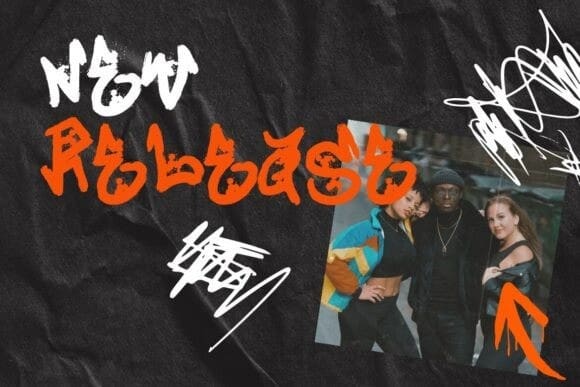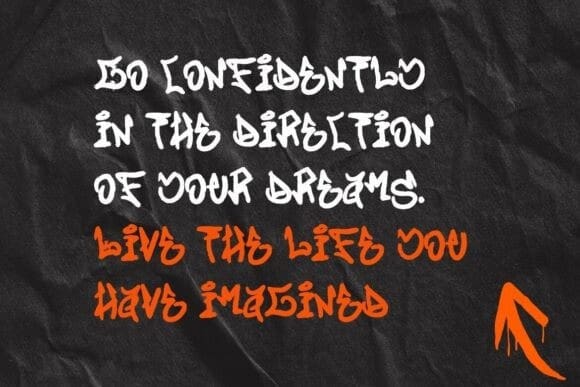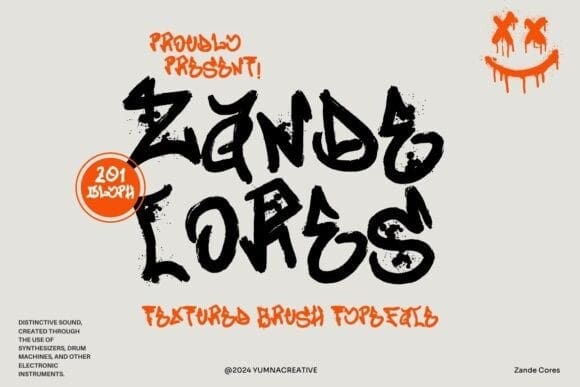
Zande Cores Font
Zande Cores Font – Textured Brush is a special brush designed to create textured effects in your artwork. It has a unique surface that adds depth and detail, making it perfect for adding a rough or organic look to your designs. Easy to use, it’s ideal for both beginners and experienced artists.